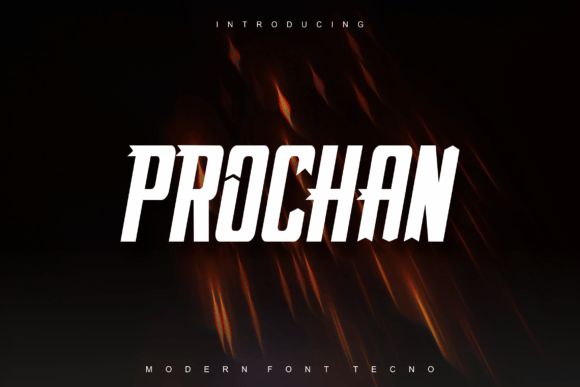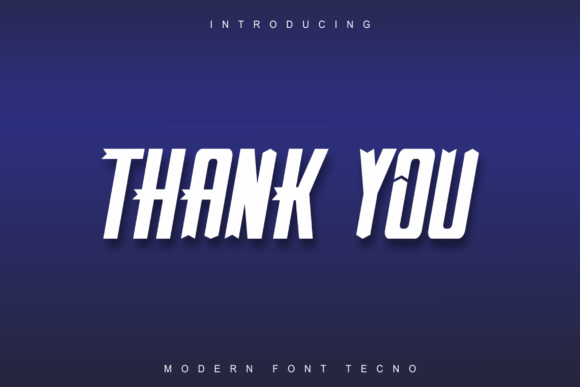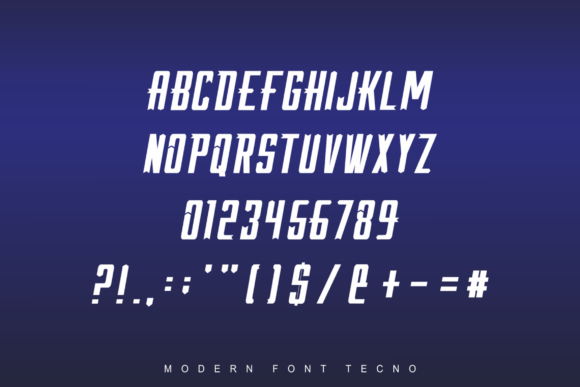
Prochan
Prochan: A Strong and Genuine Slab Serif Font
Prochan is a strong and genuine slab serif font that fits many branding projects. You can use it for logos, t-shirt prints, export materials, and much more. What’s more, this font looks great in many different settings.
Main Features of Prochan
• Strong Look: Gives a powerful and eye-catching style.
• Genuine Feel: Adds a real and unique touch to designs.
• Slab Serif Shape: Has thick, block-like serifs typical of slab serif fonts.
• Fits Many Uses: Works well for various branding and design tasks.
Best Uses for Prochan
Prochan works especially well for:
When using Prochan in your designs, keep these tips in mind:
• Use for headlines or short text to show off its strong and genuine style.
• Try different sizes to highlight the font’s slab serif features.
• Pair with simpler fonts for longer text to create contrast.
• Use its flexibility to make designs that stand out in various media.
To sum up, Prochan is a great choice for designers who want a strong and genuine slab serif font. It looks great in many different settings, making it useful for lots of creative projects. So, whether you’re making brand materials, designing t-shirts, or creating export items, Prochan offers the perfect mix of strength and authenticity.
Moreover, Prochan’s unique design shines in various branding contexts. For instance, from logos to ad campaigns, this font can make your projects better with its special style. Also, its strong yet readable look works well in designs that aim to make a big visual impact while staying genuine.
In conclusion, Prochan truly captures the essence of strong, genuine design in slab serif lettering. Its ability to work well in different uses shows how it can fit various creative needs. Therefore, for those wanting to add a touch of bold charm to their work, Prochan can improve themed creations with its unique style. Ultimately, it’s perfect for designers aiming to make a strong, genuine impact across many branding and design projects.